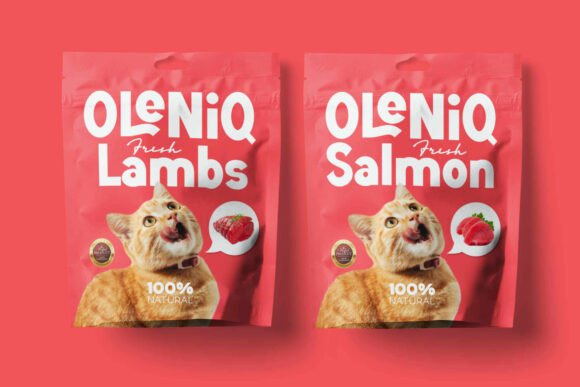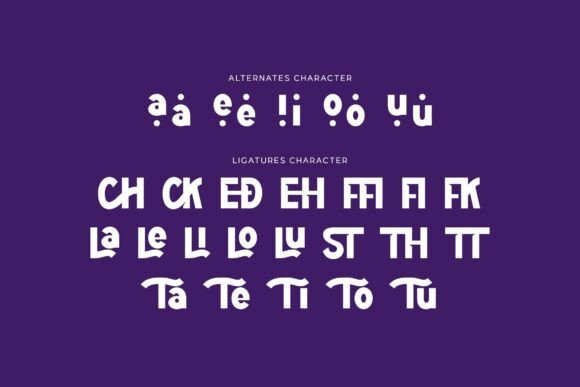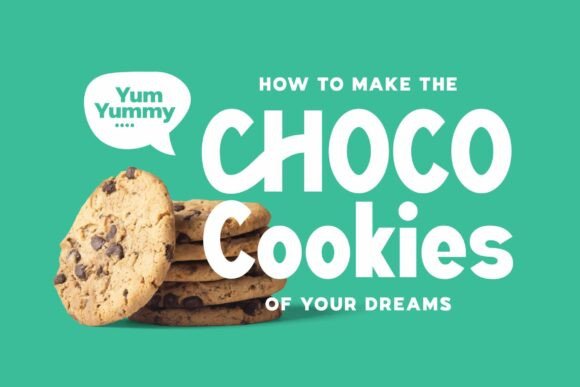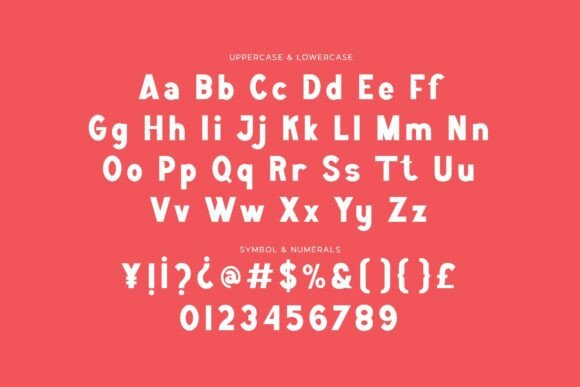
Introduction to Clem Tinkel Font
Clem Tinkel is a playful display font that blends chunky geometric forms with quirky, organic curves.
Decorative flourishes on select letters, like the extended crossbar of the “T” or the curved stem of the “k,” give it a handcrafted feel without losing its modern, clean look This font is ideal for headlines, posters, packaging, social posts, book covers, kids’ branding, and any creative work that calls for attention-grabbing typography with a fun twist.
Key Features of Clem Tinkel Font